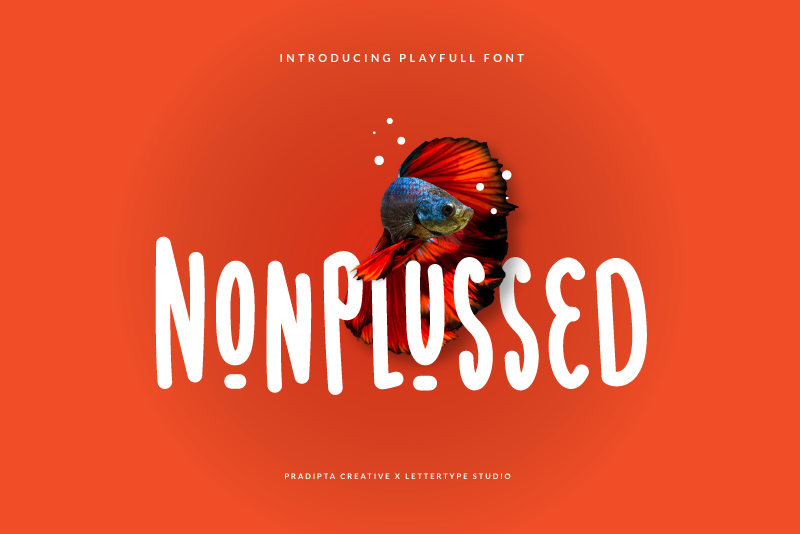
About Nonplussed
Nonplussed is a casual and playful font! This font works perfectly for anyone who needs a font for headlines, logotype, apparel, invitations, branding, packaging, advertising, and more. This typeface includes uppercase, lowercase, punctuation, symbols, and numerals.